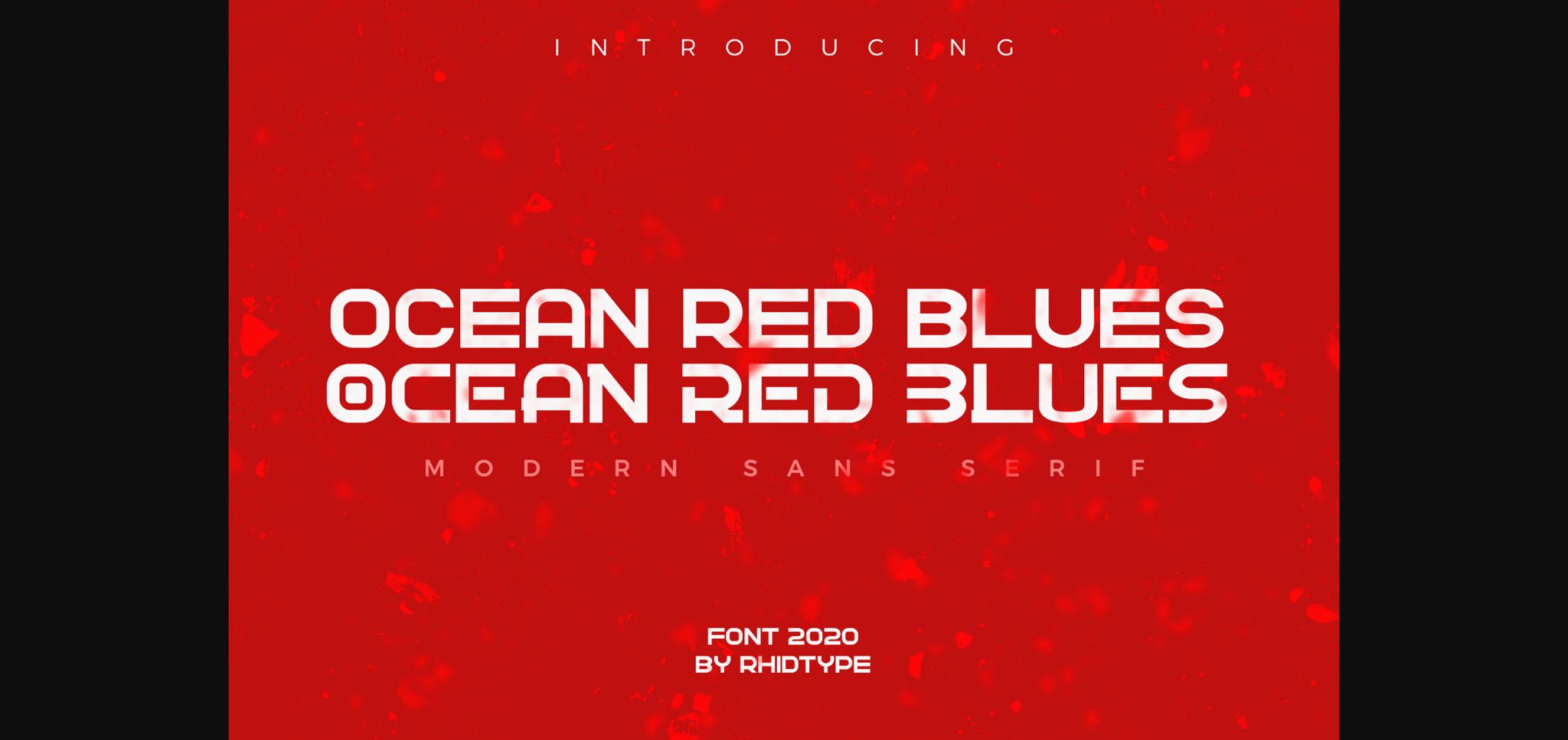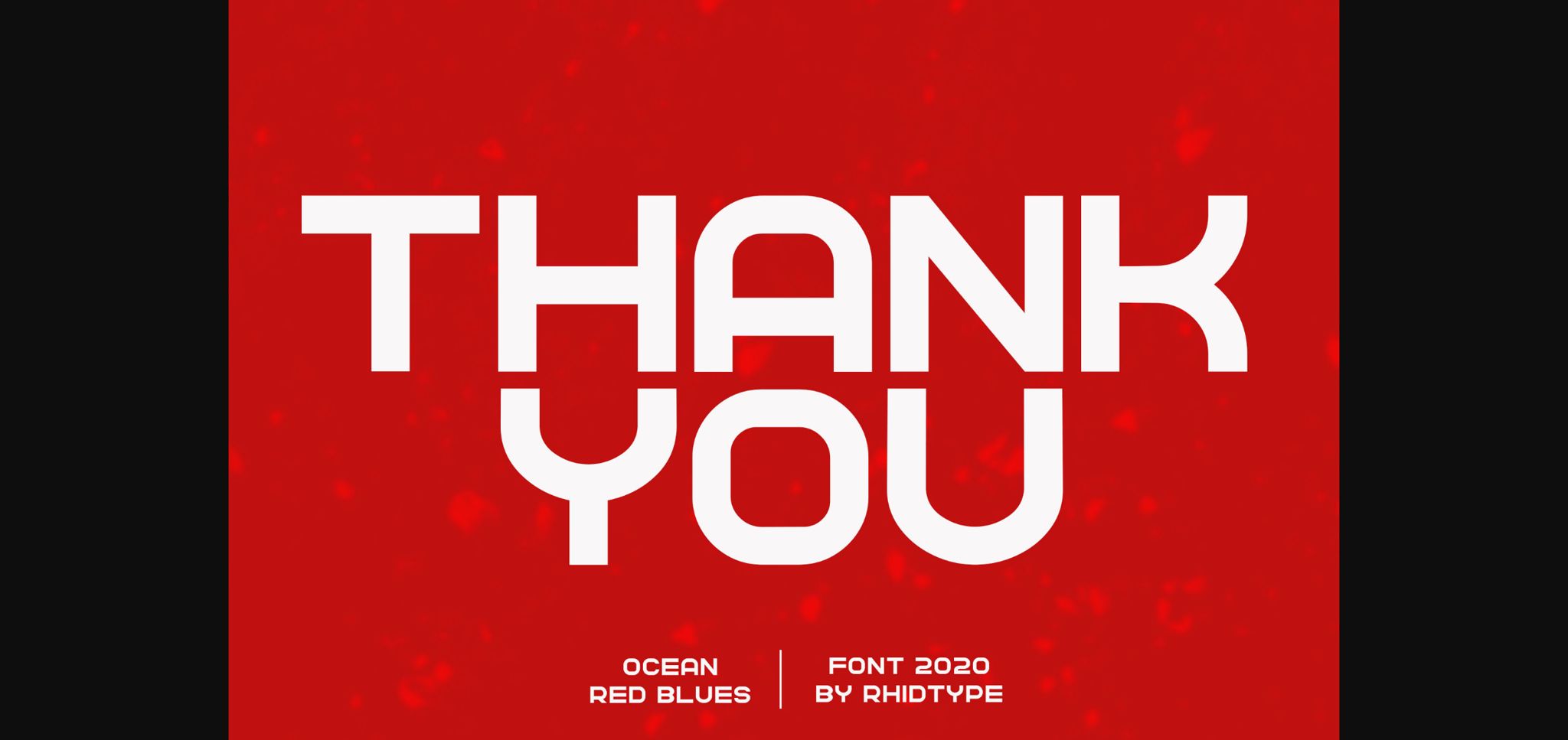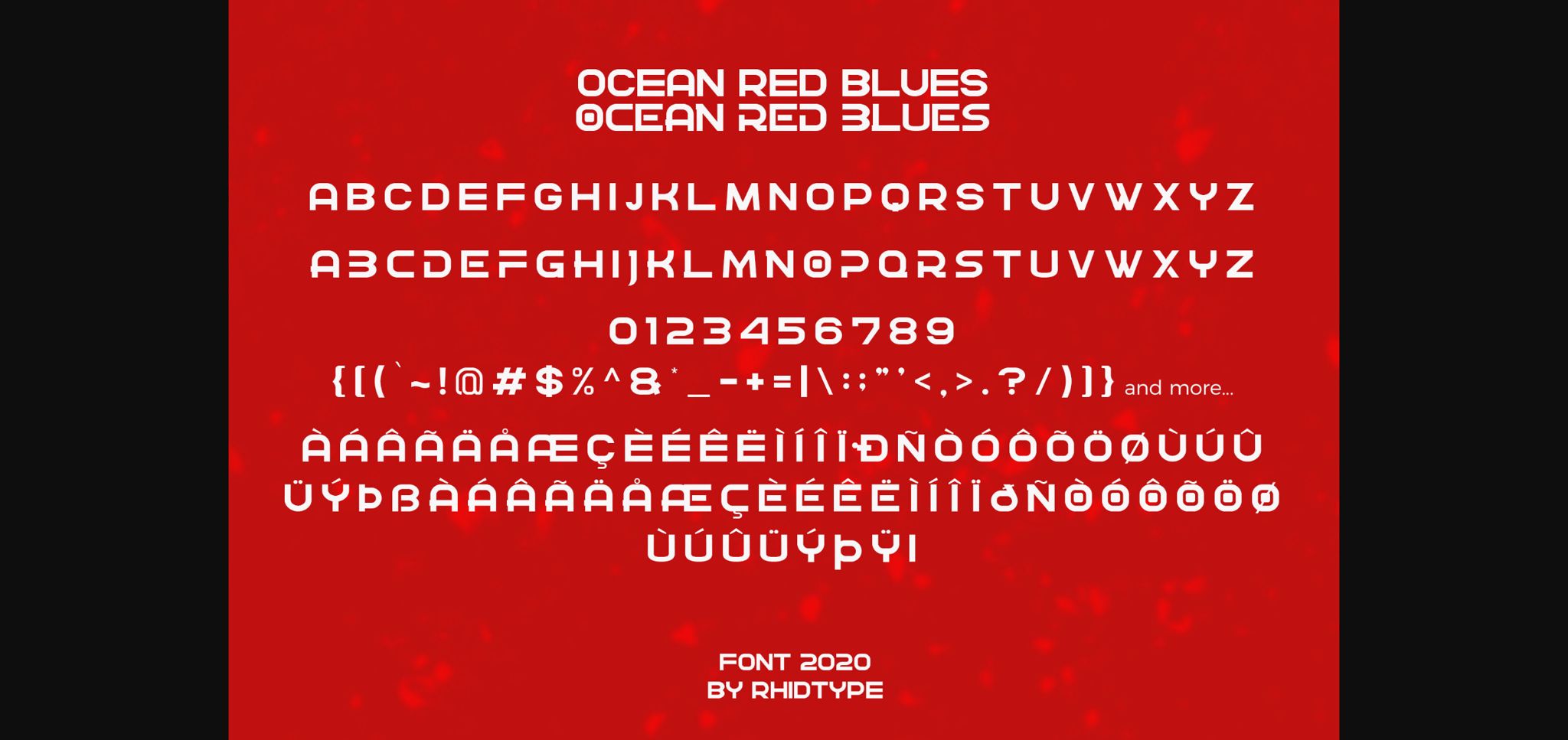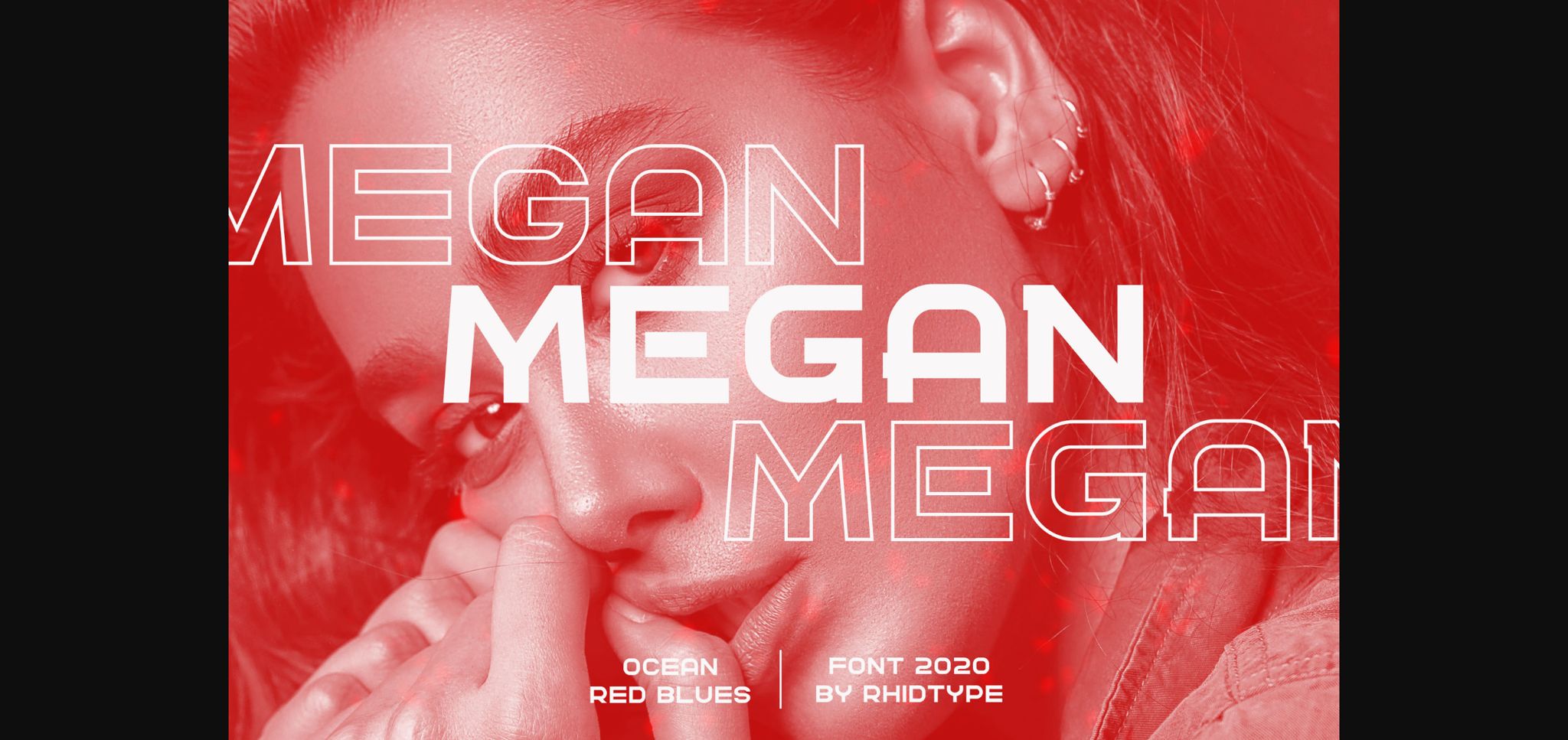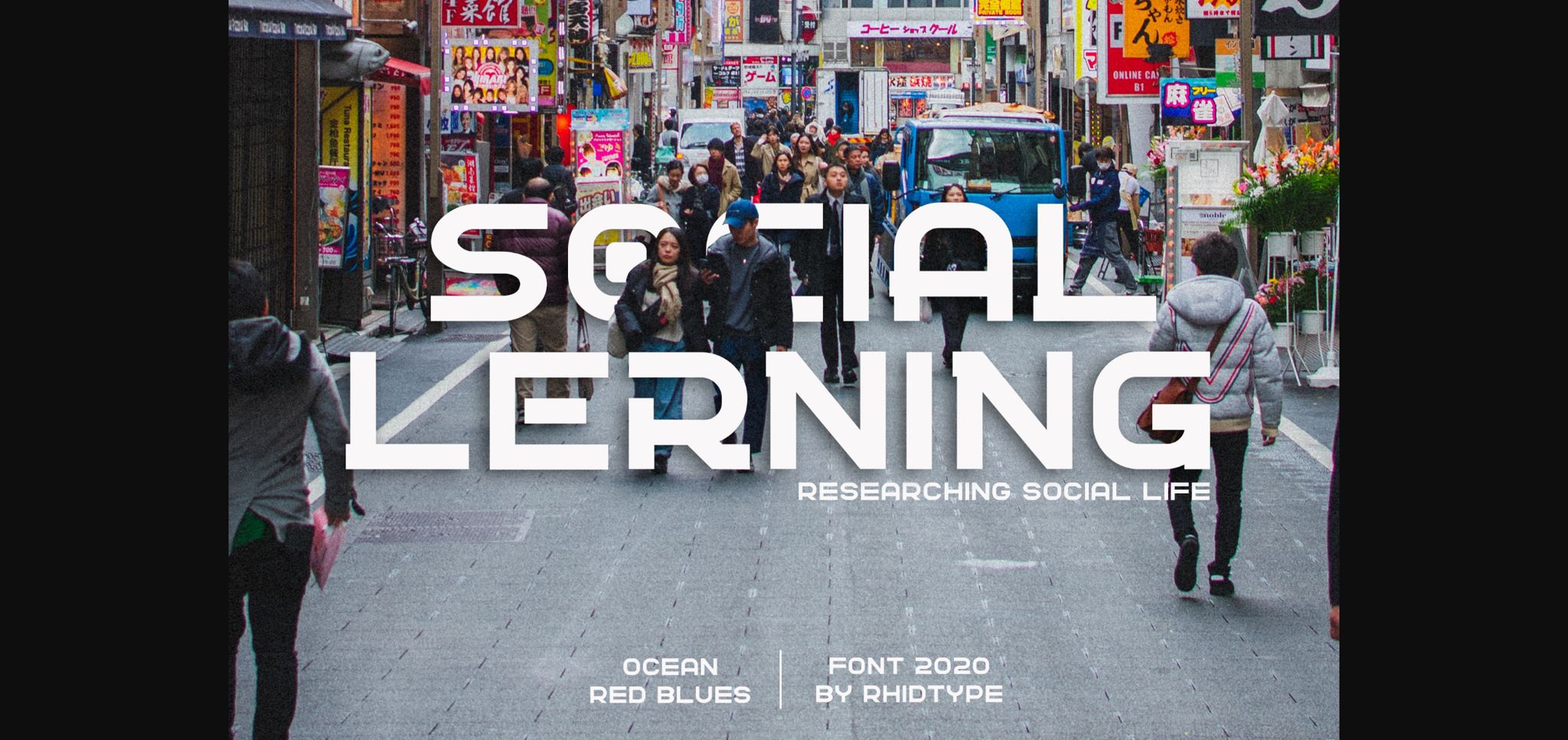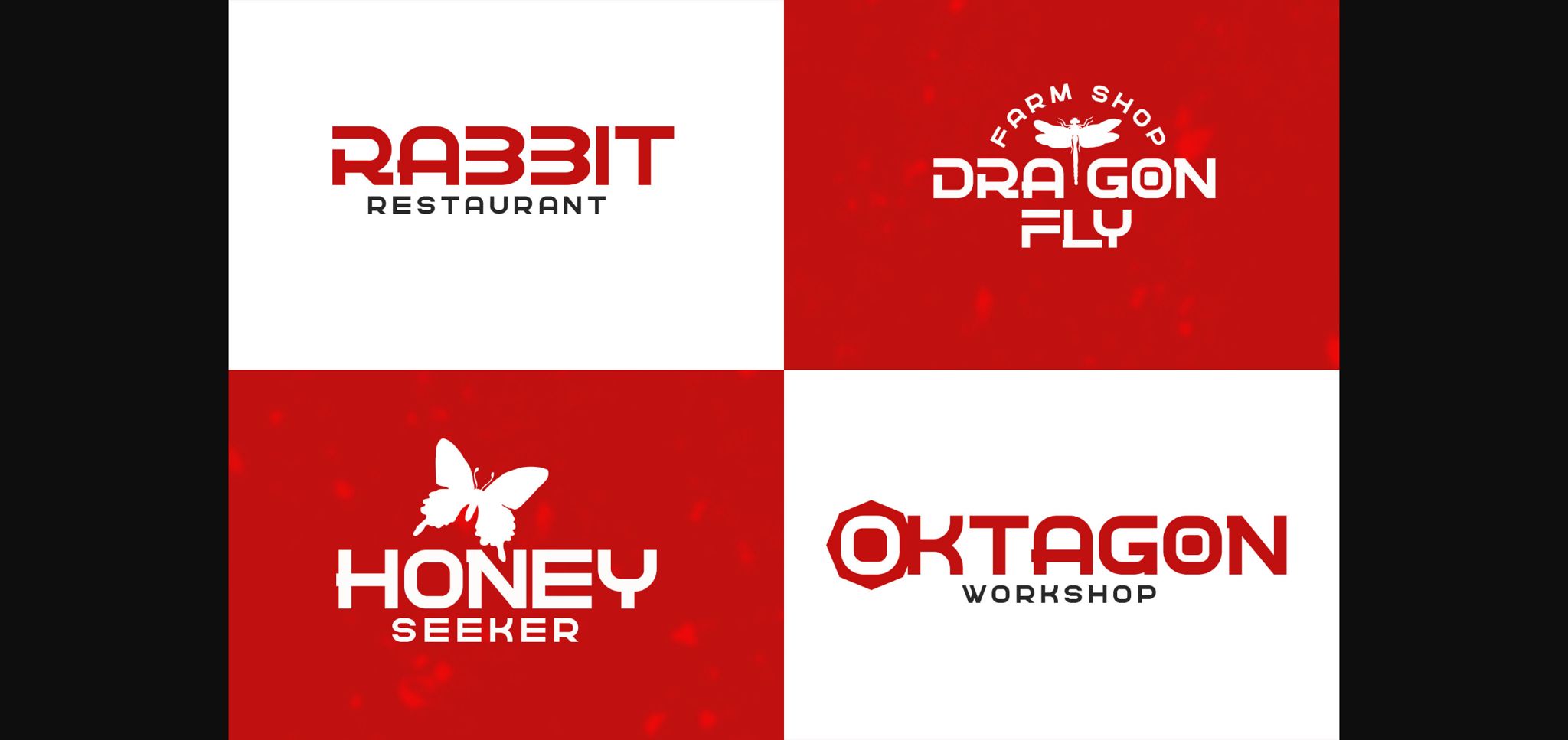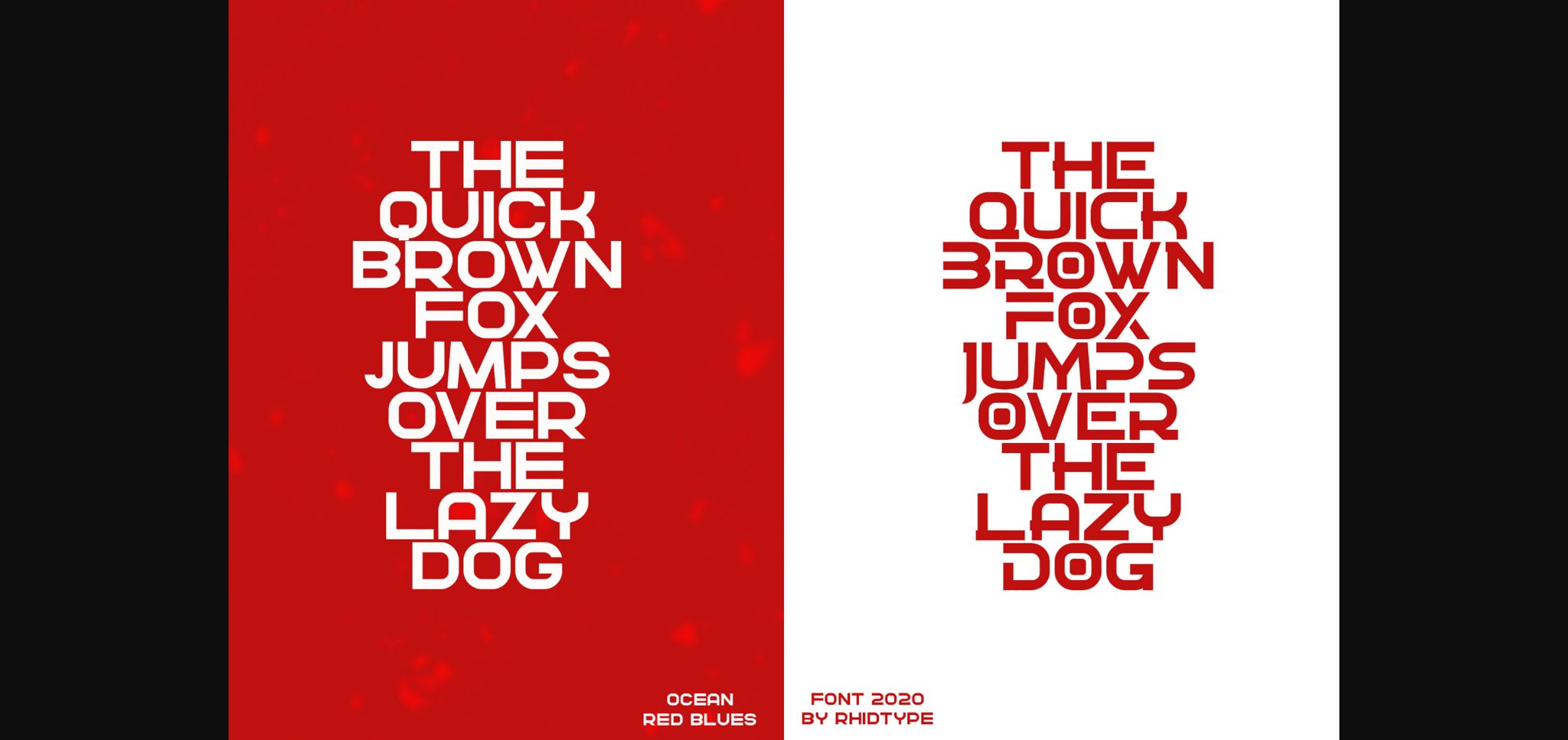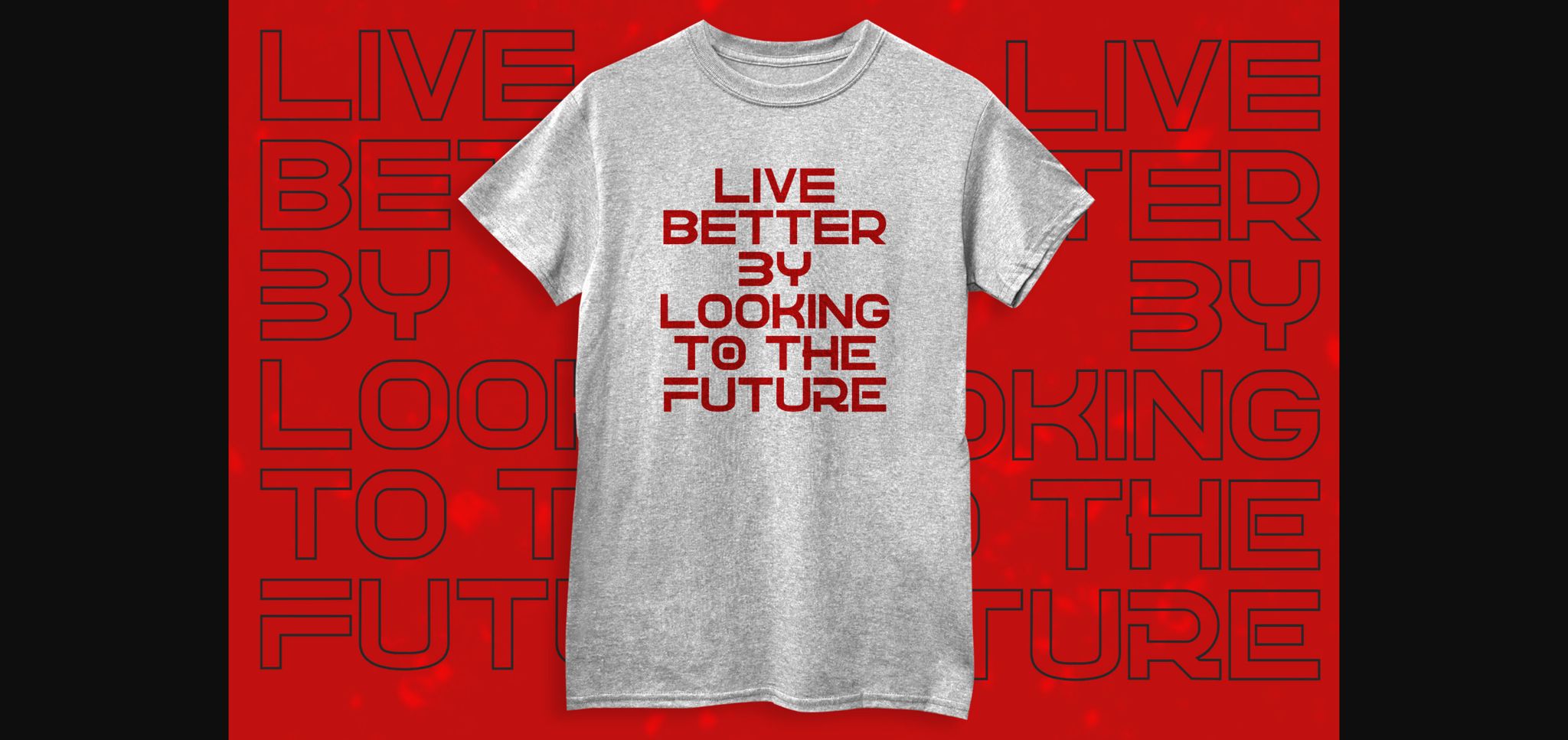
Ocean Red Blues Font
About Ocean Red Blues Font
Ocean Red Blues is a neat and simple sans serif font. Incredibly versatile, this font fits a wide pool of designs, elevating them to the highest levels.